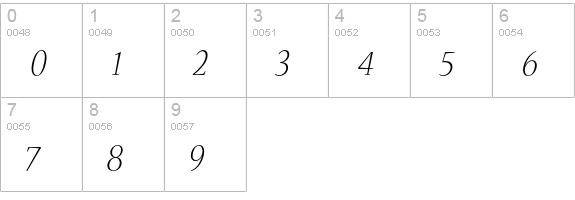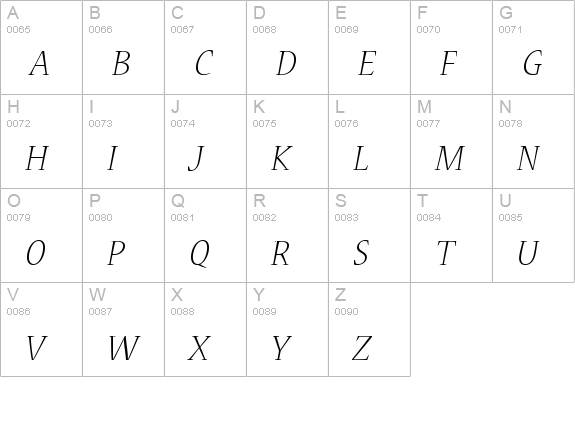
Nueva Std Light Italic Font Details
Nueva Std Light Italic is a refined, elegant, italic variant in the Nueva typeface family \xE2\x80\x94 well suited to elegant body text, refined sub-headings, and luxury branding.
Nueva Std Light Italic is a beautifully crafted typeface that exudes elegance and sophistication. Its delicate and slender letterforms convey a sense of grace and refinement, making it the perfect choice for projects that require a touch of sophistication. The italic style adds a subtle emphasis to the text, creating a sense of movement and fluidity. What makes Nueva Std Light Italic even more appealing is that it is available for free download at FontsMarket.com. This means you can easily access this stunning font and use it in your design projects without any cost. With its timeless design and versatile usage, Nueva Std Light Italic is sure to elevate the look of any design, whether it's for print or digital media. Don't miss out on the opportunity to enhance your designs with this exquisite font. Download Nueva Std Light Italic for free today and add a touch of elegance to your next project.